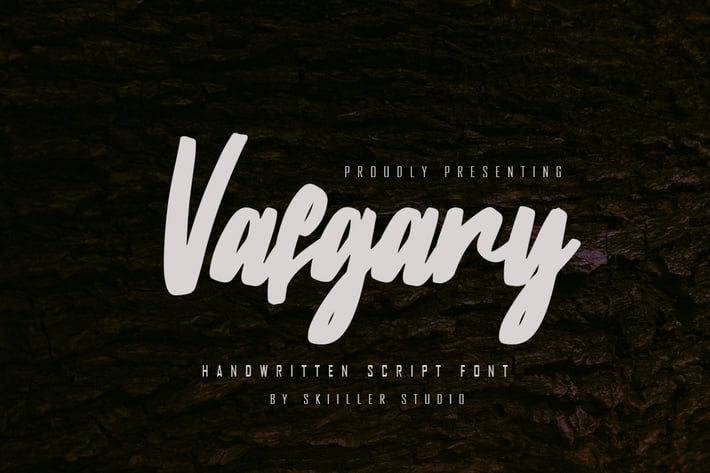
Vafgary - Handwritten Script Font
Vafgary Handwritten Script Font combined with a script so it looks elegant, suitable to support a variety of designs and your business